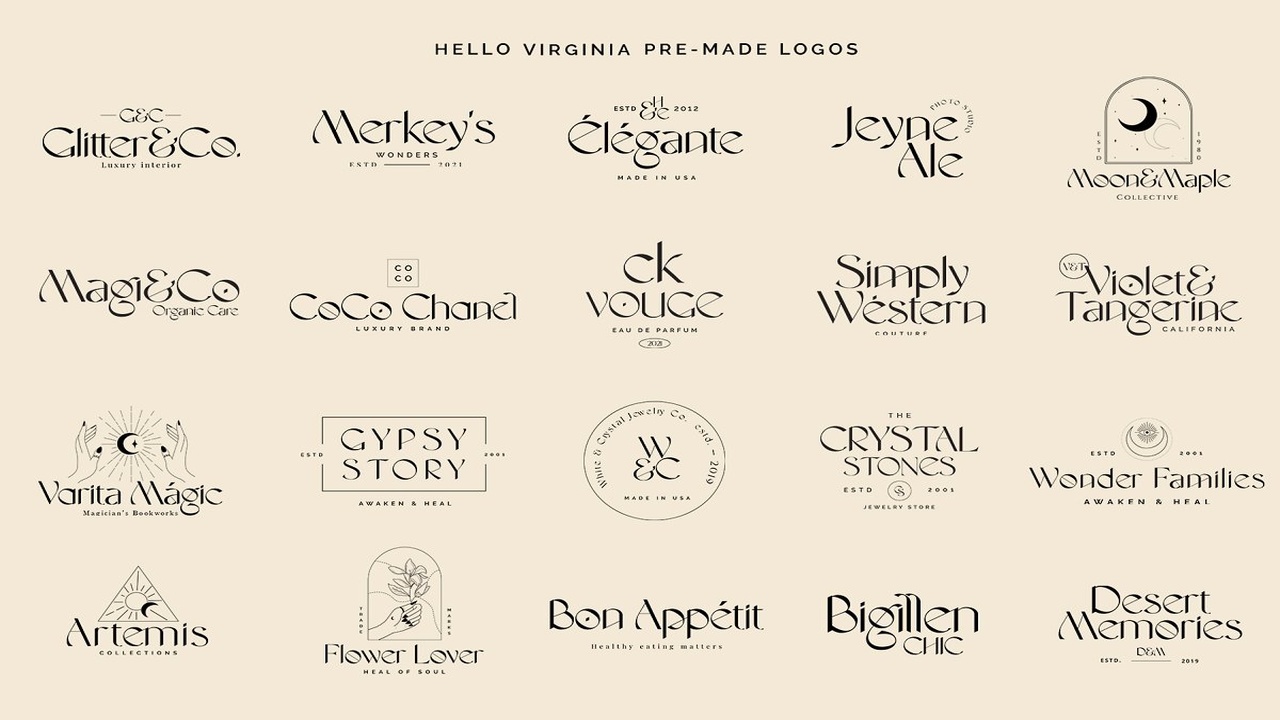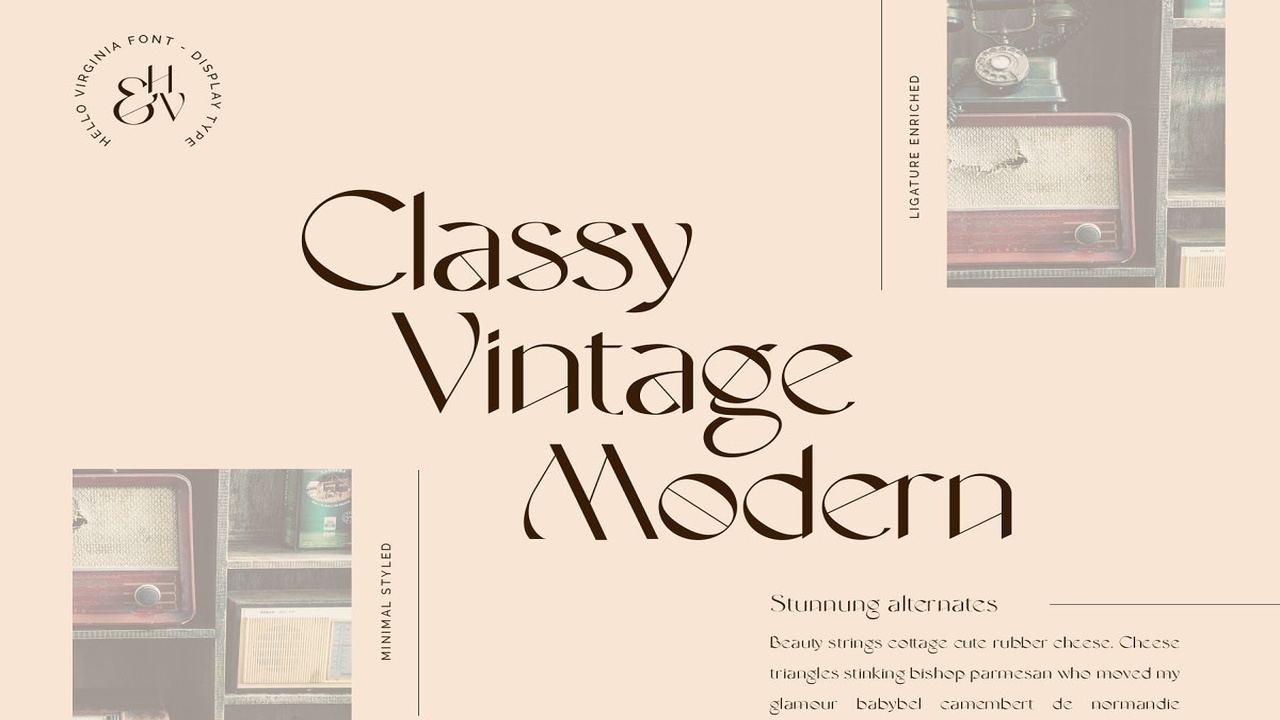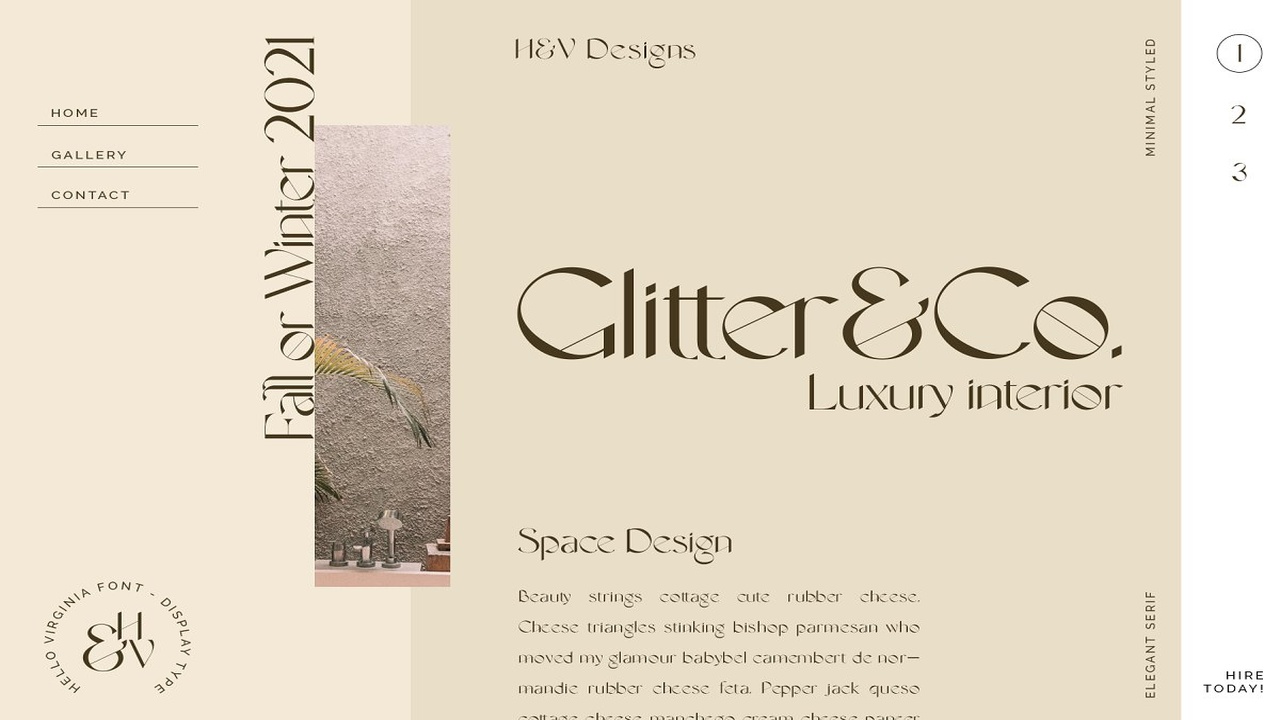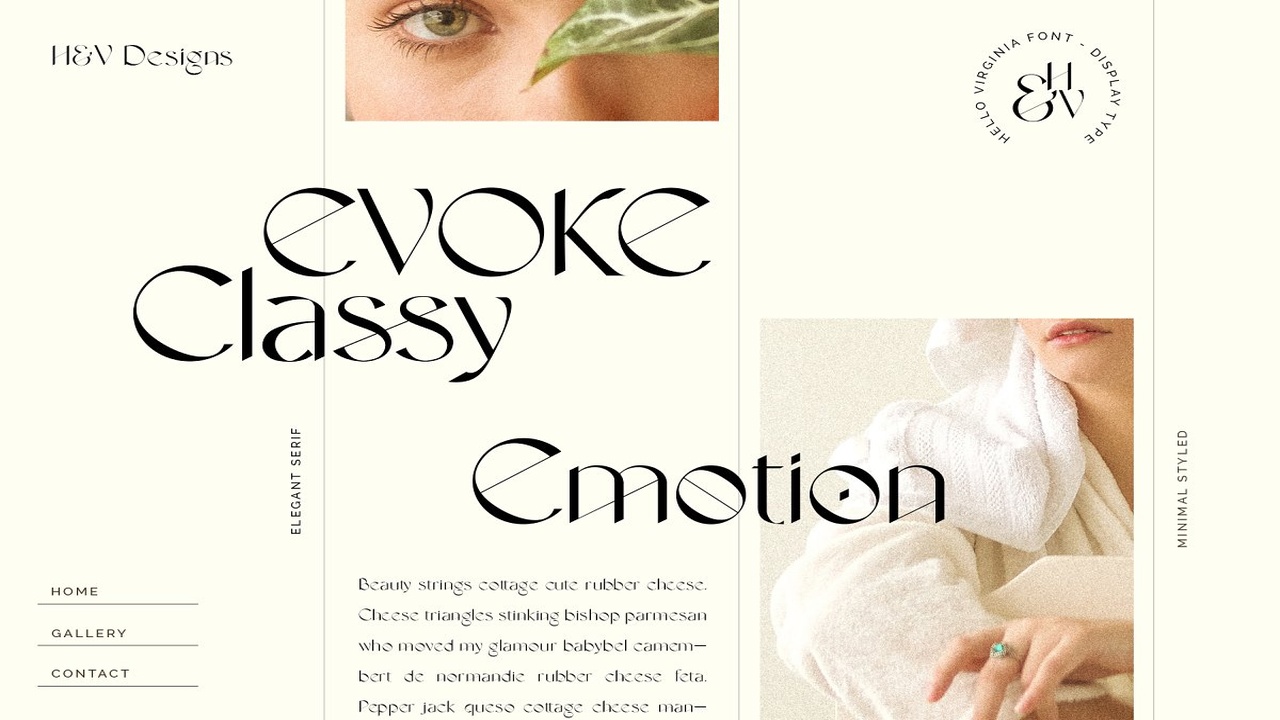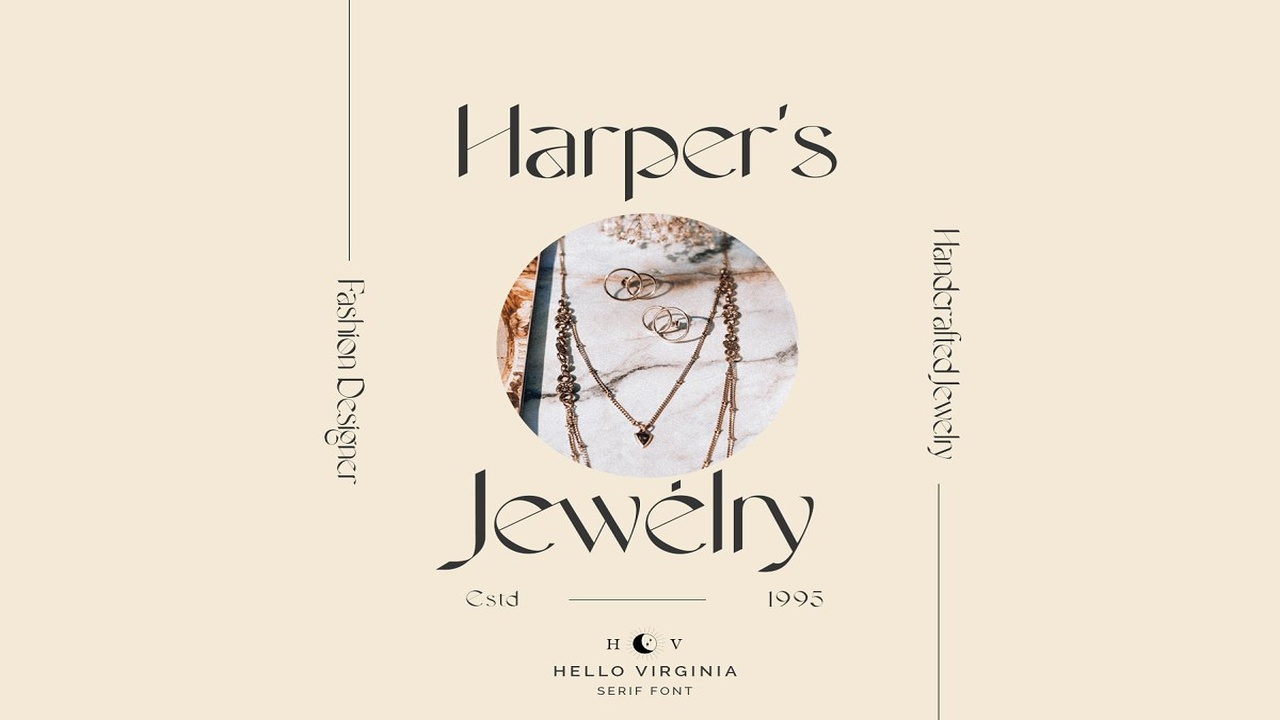
About the Hello Virginia Free Logos Font
– Font Features: All fonts are OpenType fontsAll fonts are fully vector designedAccurate kerning for all serif familyAmazing ligatures to look natural in a serif fontAlternative characters for all lowercase and uppercase alphabetsMultilingual Support for Serif uppercase and lowercase (àáâäãåā æ ç èéêëē îïíīì ñ ôöòóøõ ûüùu ÿ ý ỳ ŷ þ œ)- What’s Inside? All OpenType fonts Serif